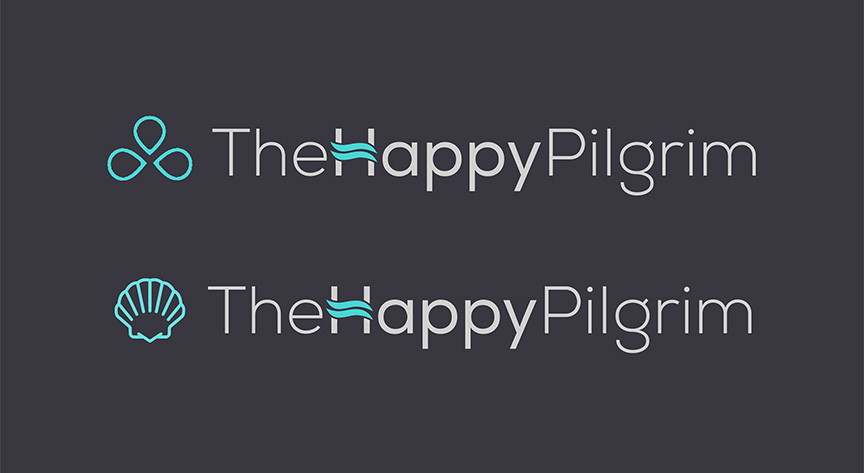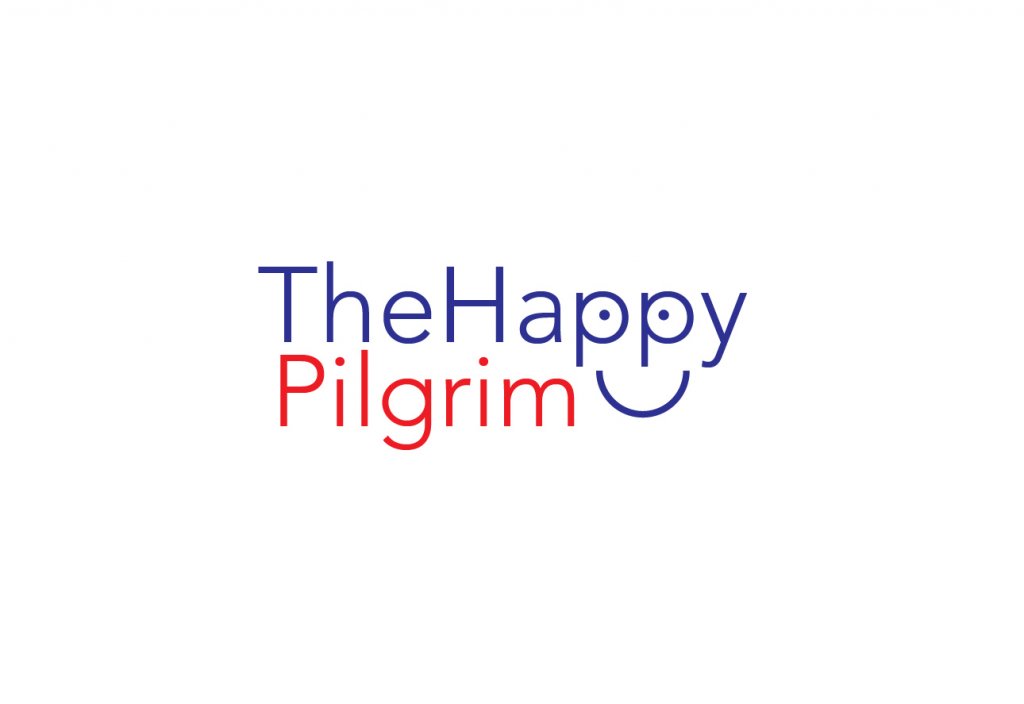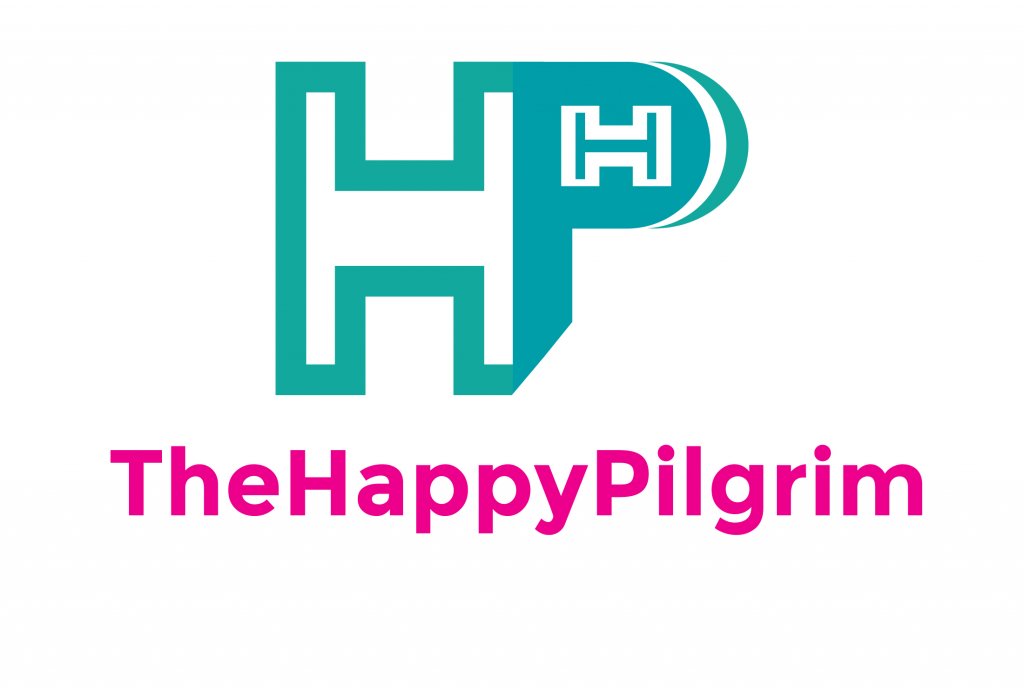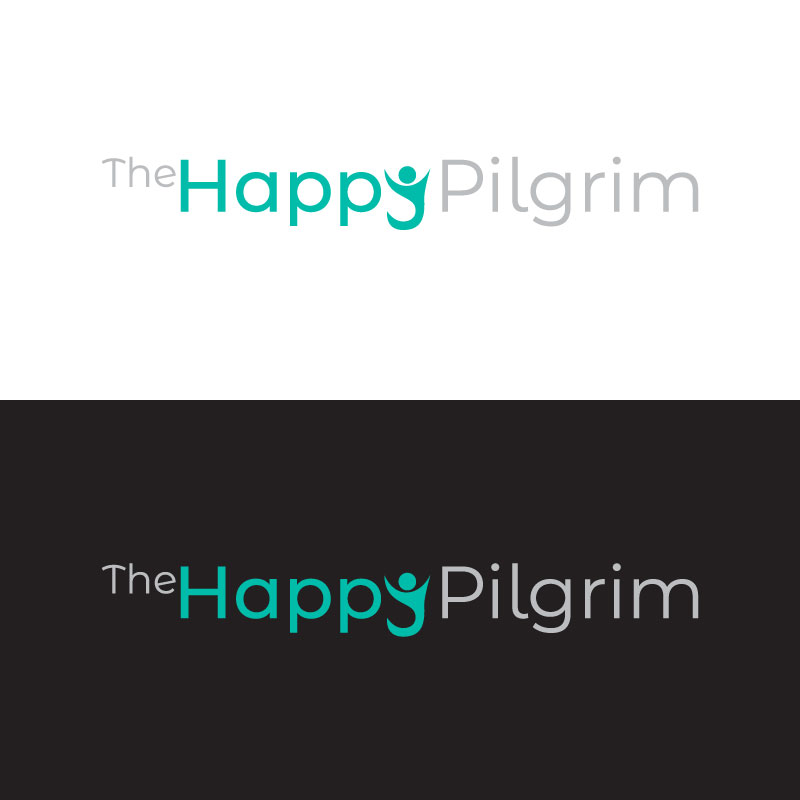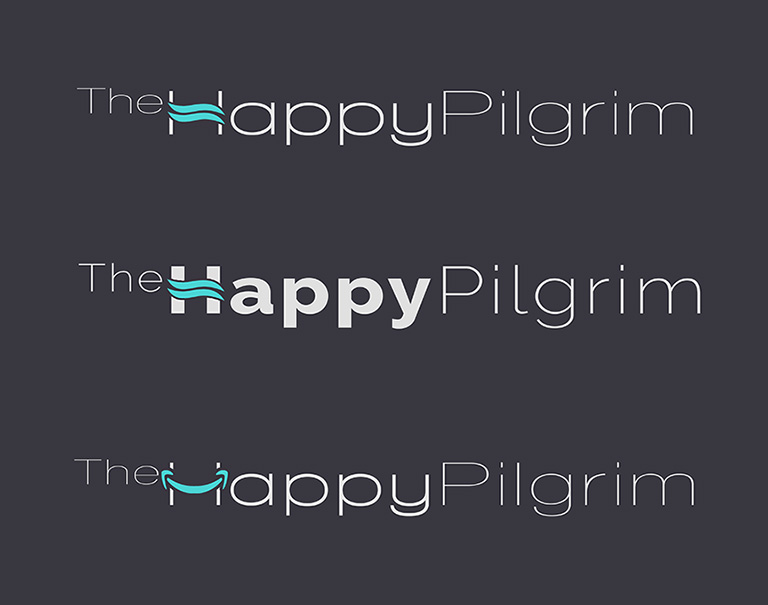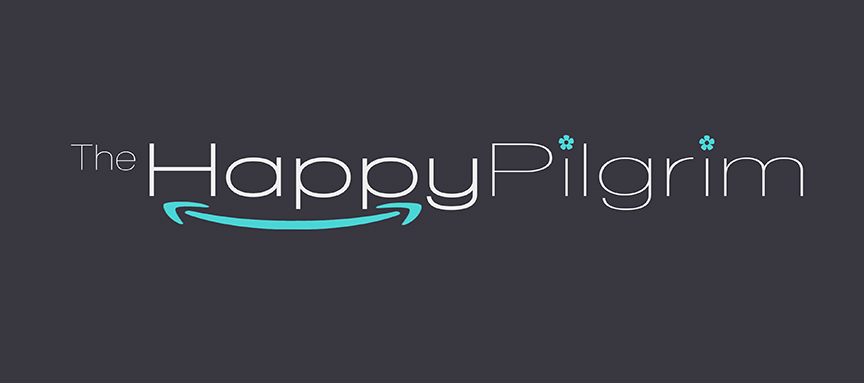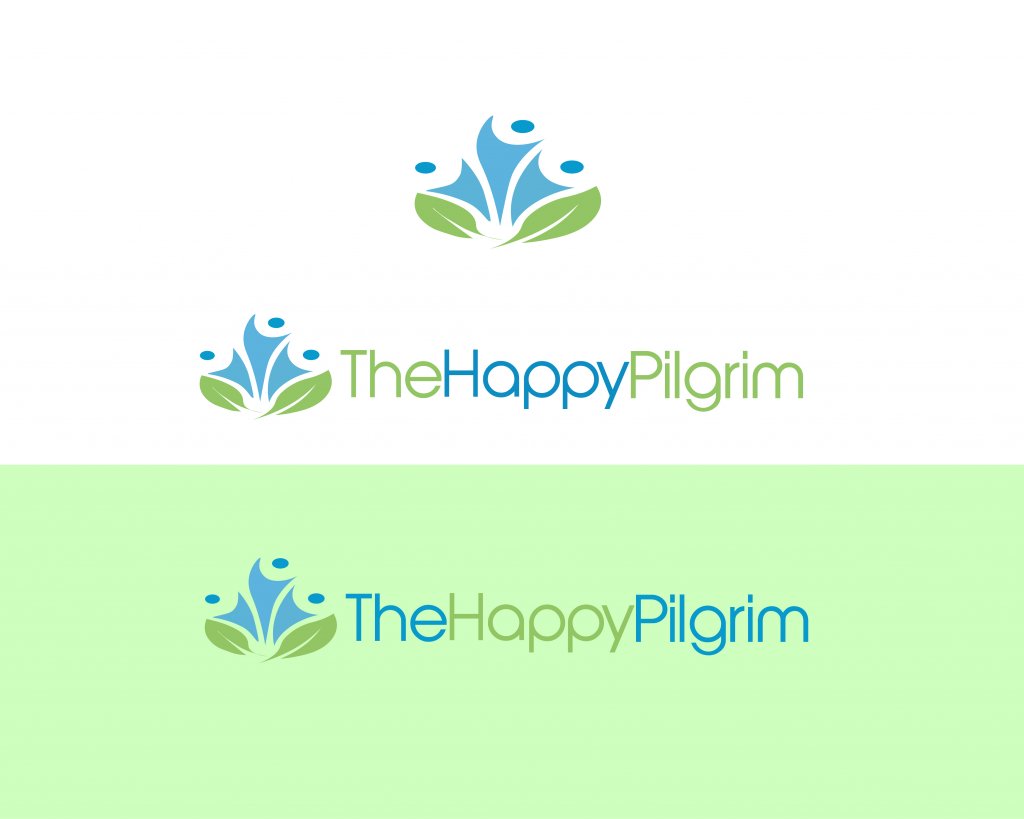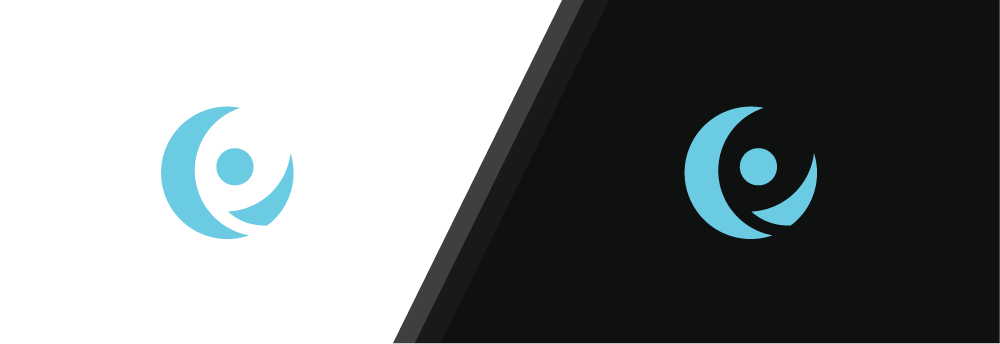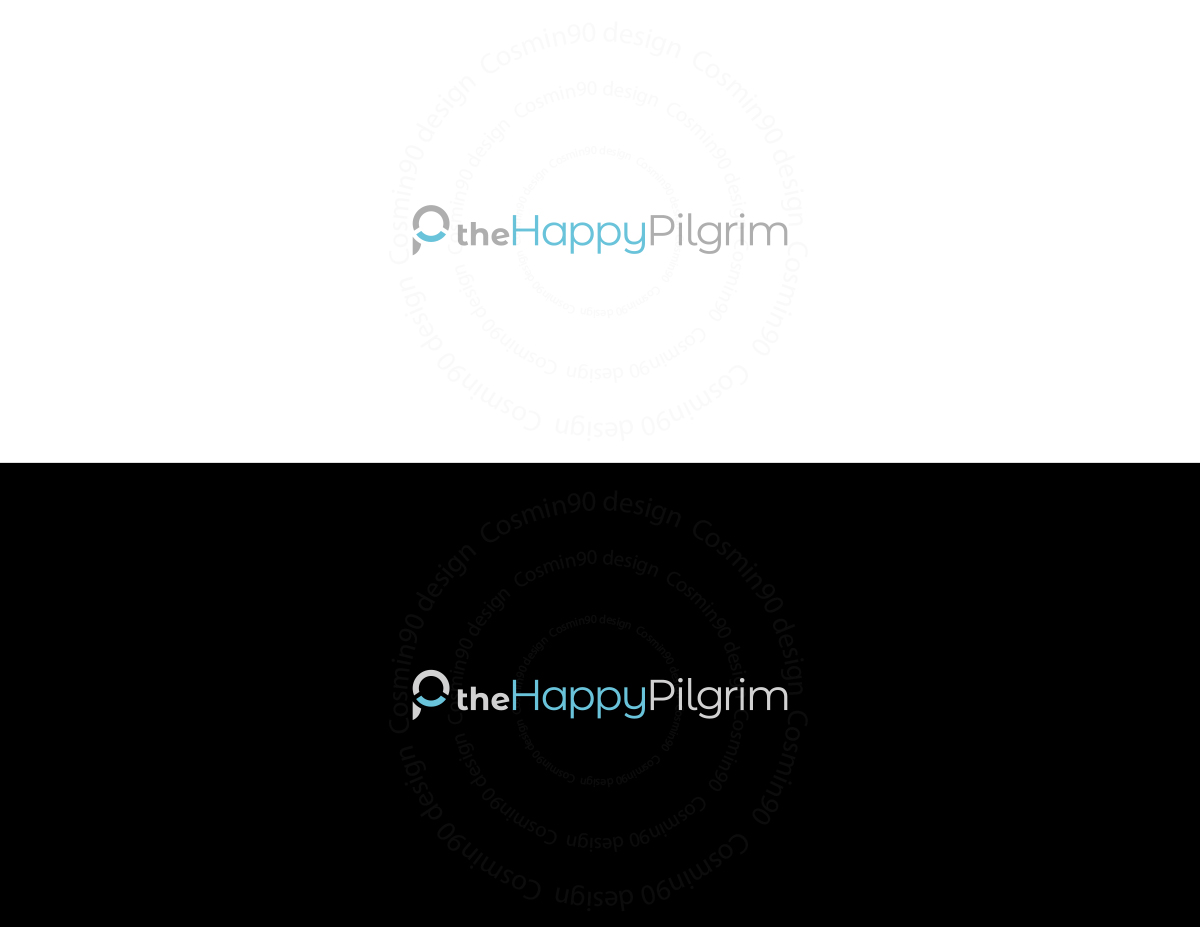
I really like your logo.
1) Can you make the icon & the text the same height.
2) Can you make 'the' supertext' (i.e. slightly higher) & make the t small case.
3) Can you do a few font variations?
with revisions and icons
can you try with 'The' as 'the' and have it as superscript. (i.e. raised and smaller)
Another variation:
Entry for The Happy Pilgrim Logo Contest :
Another try: